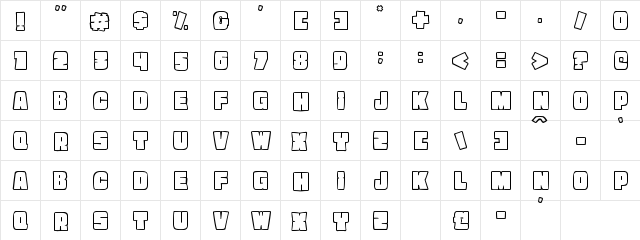
Holiday Chocolate Normal
| Designer | Joseph Dawson |
Design Context for Holiday Chocolate Typeface
Holiday Chocolate offers clean, dependable letterforms without strong stylistic allegiance, making it a practical choice for designers who need flexibility.